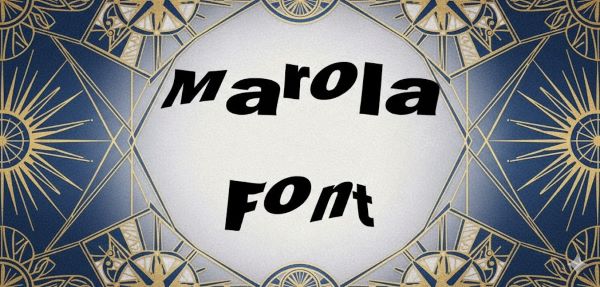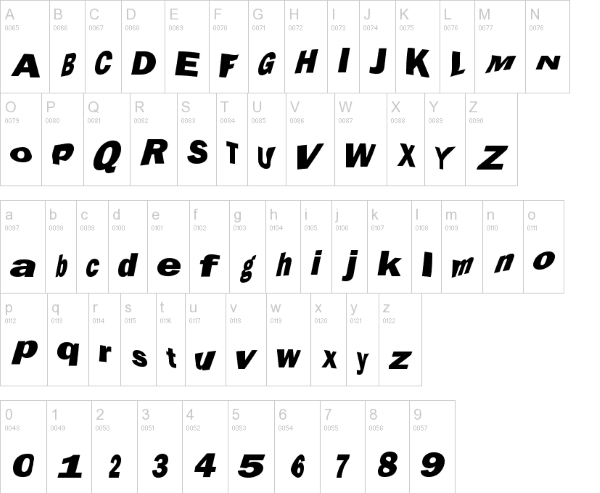
Marola Font
Marola Font is a bold, decorative display typeface with a playful, dynamic style. Its slightly slanted, distorted letterforms give a sense of motion and energy, making it ideal for posters, headlines, branding, and any design that needs a lively, eye-catching impact.
➤ Font Name: Marola
➤ Designer: Nú-Dës
➤ Style: Distorted